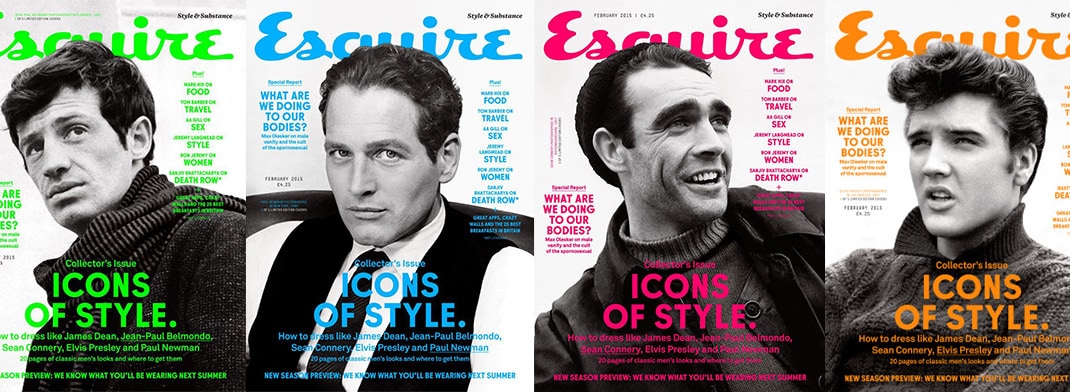
Incredible Best Font For Magazine Cover Page With New Ideas, Typeface refers to the style, while font refers to a complete set of letters and numbers in a single size and weight. Voca is a very unique serif font.
The title of the magazine VIBE is in the sansserif font From thinglink.com
The title of the magazine VIBE is in the sansserif font Below, we have some of the best fonts for magazines from envato elements, and suggestions on how to use them and pair them.
There are 28 distinct fonts, including 7 different weights, ranging from thin to black. 18+ best free magazine & book cover fonts for download arturo font. Typeface refers to the style, while font refers to a complete set of letters and numbers in a single size and weight. Chunk five (free from fontsquirrel.com ):
Technically, however, the two are not the same. This sans serif font is very vertical, which is ideal for book titles. Are you looking for the perfect magazine cover fonts? You can always make your magazine front cover as creative as you want. The Best Fonts for Magazine Covers.
What is a good font for a magazine cover? Top 25 best fonts for headlines, headers & titles. Featuring thick structures, 4 weights, and an italic version of each. Chunk five (free from fontsquirrel.com ): 50 Best Creative Book and magazine Cover Designs for Inspiration.
That is, they should stay in the background and not distract the reader from the message. Featuring thick structures, 4 weights, and an italic version of each. She does her best to deliver you the most valuable deals on the web. Below, we have some of the best fonts for magazines from envato elements, and suggestions on how to use them and pair them. The Best Fonts for Magazine Covers.
That is, they should stay in the background and not distract the reader from the message. There are 28 distinct fonts, including 7 different weights, ranging from thin to black. A snapshot of some of the most iconic and familiar logos illustrates the point. These newsletter templates (top from adobe indesign; Pin on Magazines.
The fonts used in print newsletters should be much like fonts for books. Explore 52 stunning magazine cover fonts to download and find the perfect match that fits your next web and print design projects of all sizes. Every font is free to download! Canva makes that as easy as possible. Pin on Typography.
Lifewire / jacci howard bear / adobe / microsoft. Every font is free to download! This sans serif font is very vertical, which is ideal for book titles. Myp is an online magazine and design project that showcases the work of young creatives and artists. The Best Fonts for Magazine Design Typography & Fonts for InDesign.
You can always make your magazine front cover as creative as you want. That is, they should stay in the background and not distract the reader from the message. The designer of isidora sans recommends it for titles, books, magazines, and corporate design, as well as packaging and logotypes. Didot pairs well with sans serif fonts with modern face proportions like helvetica, univers, or more american, grotesque fonts like vectora or trade gothic. The Best Fonts for Magazine Covers.
Chunk five (free from fontsquirrel.com ): Canva makes that as easy as possible. Are you looking for the perfect magazine cover fonts? Liza is masterbundles’ cmo and copywriter, passionate about black coffee, writing and depeche mode. MagLoveTop10 Best food magazine covers of 2014 •.
Envato elements magazine cover templates magazine font examples. Liza is masterbundles’ cmo and copywriter, passionate about black coffee, writing and depeche mode. Fontsc.com is formed in the spirit of for fonts, where creative ideas meet beautiful designs as we all know great designs last forever!. Infuse your magazine cover design with a healthy dose of color & contrast. The title of the magazine VIBE is in the sansserif font.
Are you looking for the perfect magazine cover fonts? This meaty and emphatic slab serif font is ideal for book titles in numerous genres. Liza is masterbundles’ cmo and copywriter, passionate about black coffee, writing and depeche mode. If you need to create a final magazine cover mockup to show a client a final cover, the editing is just as easy! The Best Fonts for Magazine Covers.
While Suited Well For Stationary, It Is Equally Useful For Magazine Branding.
Chunk five (free from fontsquirrel.com ): That being said, font choice has the biggest effect on the overall appearance and tone of the text. Myp is an online magazine and design project that showcases the work of young creatives and artists. Fontsc.com is formed in the spirit of for fonts, where creative ideas meet beautiful designs as we all know great designs last forever!.